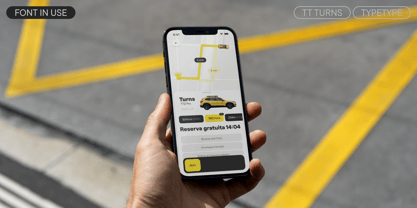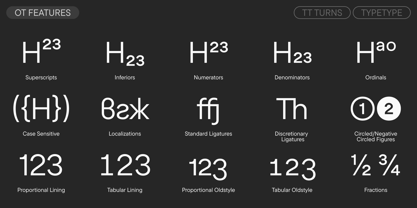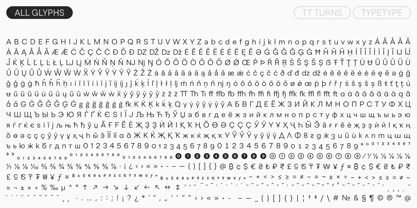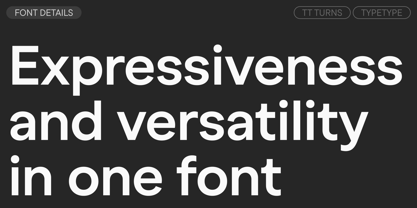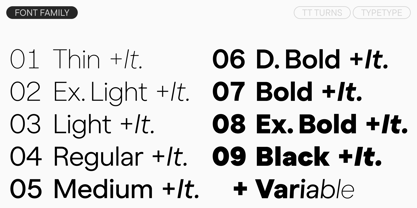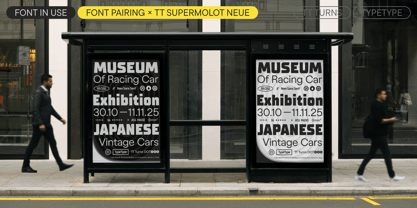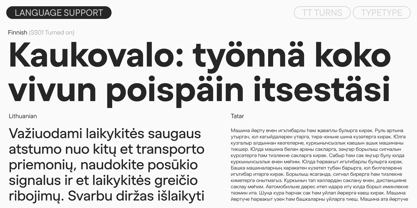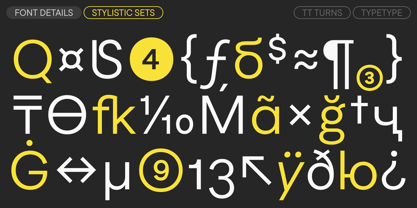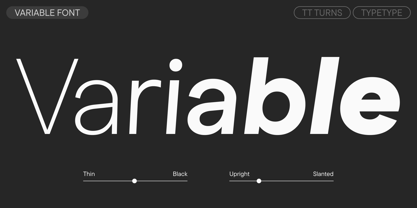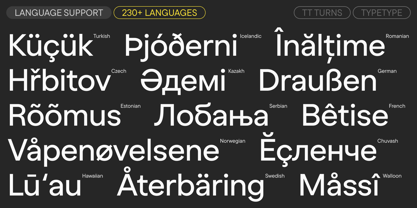
TT Turns
by TypeType
The TT Turns Font Family was designed by Ivan Gladkikh, Pavel Emelyanov, TypeType Team and published by TypeType. TT Turns contains 19 styles and family package options.
Introducing the new TT Turns — foundational and striking all at once! TT Turns is a geometric sans serif with distinctive rounded glyphs and expressive overhanging elements. This versatile font has a concise appearance and is highly readable at small sizes, while at large point sizes, it becomes a display font and reveals its character to the fullest. It's energetic, strong, and dynamic—a quality that is especially evident in the italic font styles. In 'Kk' and 'Жж', the diagonals meet the stem at a steep angle, creating a striking triangle of white space. This adds a sharp quality to the design. Other characteristic details include the sharp terminals on 'Ss', 'Cc', 'a', 'Ээ', and 'Зз', an expressive leg on the 'R', and pronounced protruding strokes on the left parts of 'Лл' and 'Дд'. You can add even more display character to the font using its striking stylistic sets. For instance, the 'a' can be changed from a double-storey to a single-storey form, the 'g' from a single-storey to a double-storey, the shape of the 'G' can be made rounded, the glyphs for 'Жж' and 'Kk' can be changed, and the shape of the 'Q's tail can be transformed. And if, on the contrary, you wish to calm the typesetting, a set with more restrained tail forms for the Cyrillic 'Уу' and Latin 'y' is available. The font also includes ligatures, numerous OpenType features that significantly expand its capabilities, and a variable style that changes along the weight and slant axes. TT Turns is suitable for a multitude of different tasks: from use in running text, on the web, and in applications to branding and packaging design. It can be used with equal effectiveness in virtually any field. TT Turns includes: - 19 styles: 9 uprights, 9 italics, and 1 variable font - 931 glyphs per style - 34 OpenType features - Support for over 230 languages
Designers: Ivan Gladkikh, Pavel Emelyanov, TypeType Team
Publisher: TypeType
Foundry: TypeType
Design Owner: TypeType